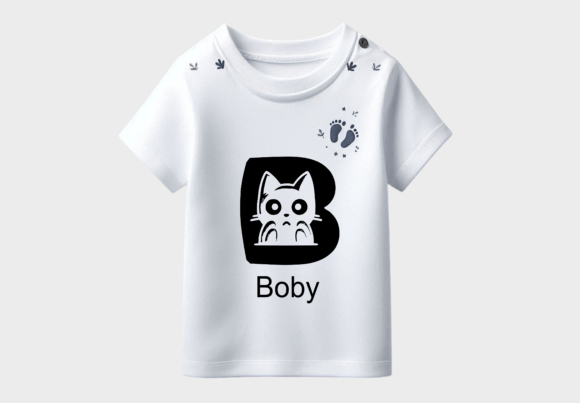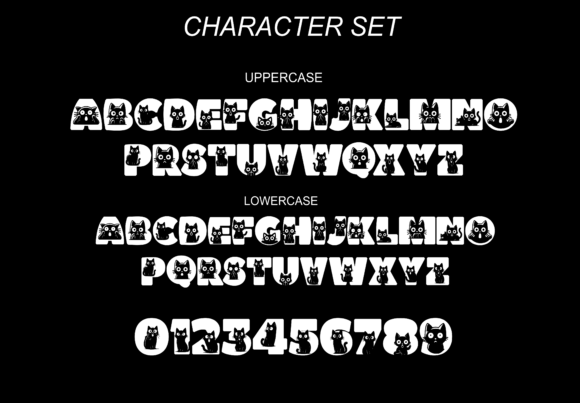
Unleash Your Inner Creativity with the Whimsical Catwow Font
Do you ever find yourself doodling in the margins of a sketchbook, letting your imagination run wild with the possibilities of typography and design? That’s exactly what happened for our design team when they stumbled upon the enchanting Catwow Font – a truly one-of-a-kind, large-lettered typography that embodies the carefree spirit of a fantastical realm.
With its unique blend of innovative design and playful spookiness, the Catwow Font is poised to revolutionize the world of typography. Whether you’re a seasoned designer or a budding creative, this font is sure to bring a touch of magic to your projects. Its value lies in its versatility, making it the perfect choice for designers who crave something new and exciting to add to their toolkit.
Catwow Font Key Features
- Unique Characteristics: The Catwow Font features a unique blend of modern and vintage elements, with intricate details and bold lines that set it apart from other sans-serif fonts.
- Font Weight and Style: The font family includes multiple weights, from Light to Extra Bold, as well as various styles, such as Regular, Italic, and Oblique, providing users with flexibility and versatility.
- Kerning and Ligatures: The font includes advanced kerning and ligature pairs, ensuring smooth text flow and a professional appearance, even in complex typography.
Designer Review: Catwow Font
Overall, I was excited to dive into the Catwow Font, and I found some great aspects that make it ✨ shine. Here are a few of my favorites:
- Playful yet elegant**: Catwow Font strikes a great balance between being cute and sophisticated, making it perfect for child-related projects, pet stores, or any design that needs a touch of whimsy.
- High legibility**: The font is designed to be easily readable, even at smaller sizes, which is essential for digital and print designs.
- Customizable**: The font comes with a wide range of stylistic sets and ligatures, allowing designers to add a personal touch to their projects.
However, I also encountered some limitations that prevent Catwow Font from being a top pick for every project:
- Limited language support**: Catwow Font currently only supports Latin script, which may limit its usability for projects that require other languages.
Overall, I’d give Catwow Font a solid 4 out of 5 stars. While it’s not perfect, its unique charm and high-quality design make it a great choice for the right projects.
Tips for Getting the Most Out of Catwow Font
For the best results, use Catwow Font in bold or italic styles to add emphasis to your text. You can also experiment with different font sizes and combinations to create visually appealing designs.
Use Catwow Font for creative projects such as logo design, branding, and typography-based art. The font’s unique style makes it ideal for adding a touch of whimsy and playfulness to your designs.